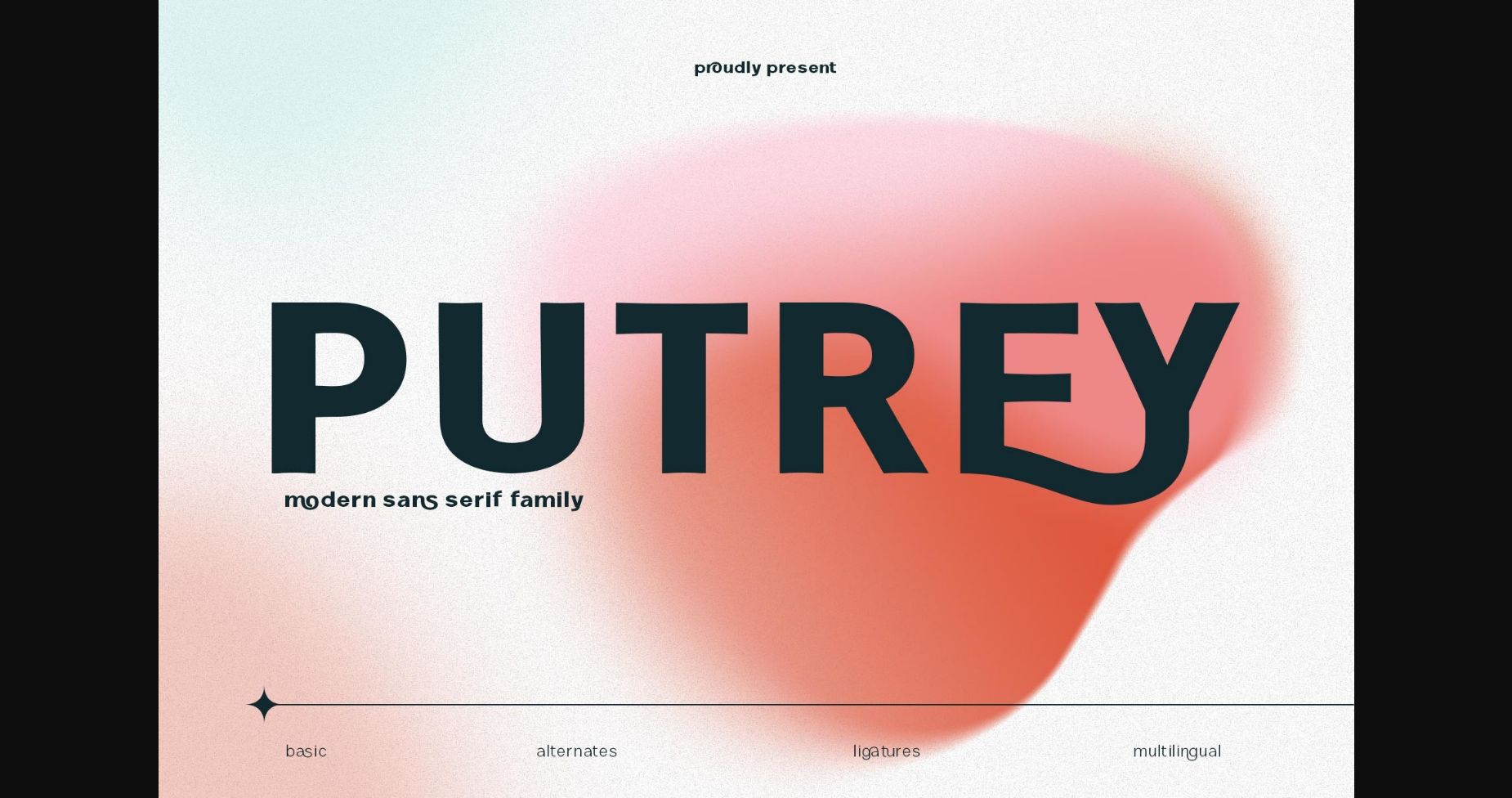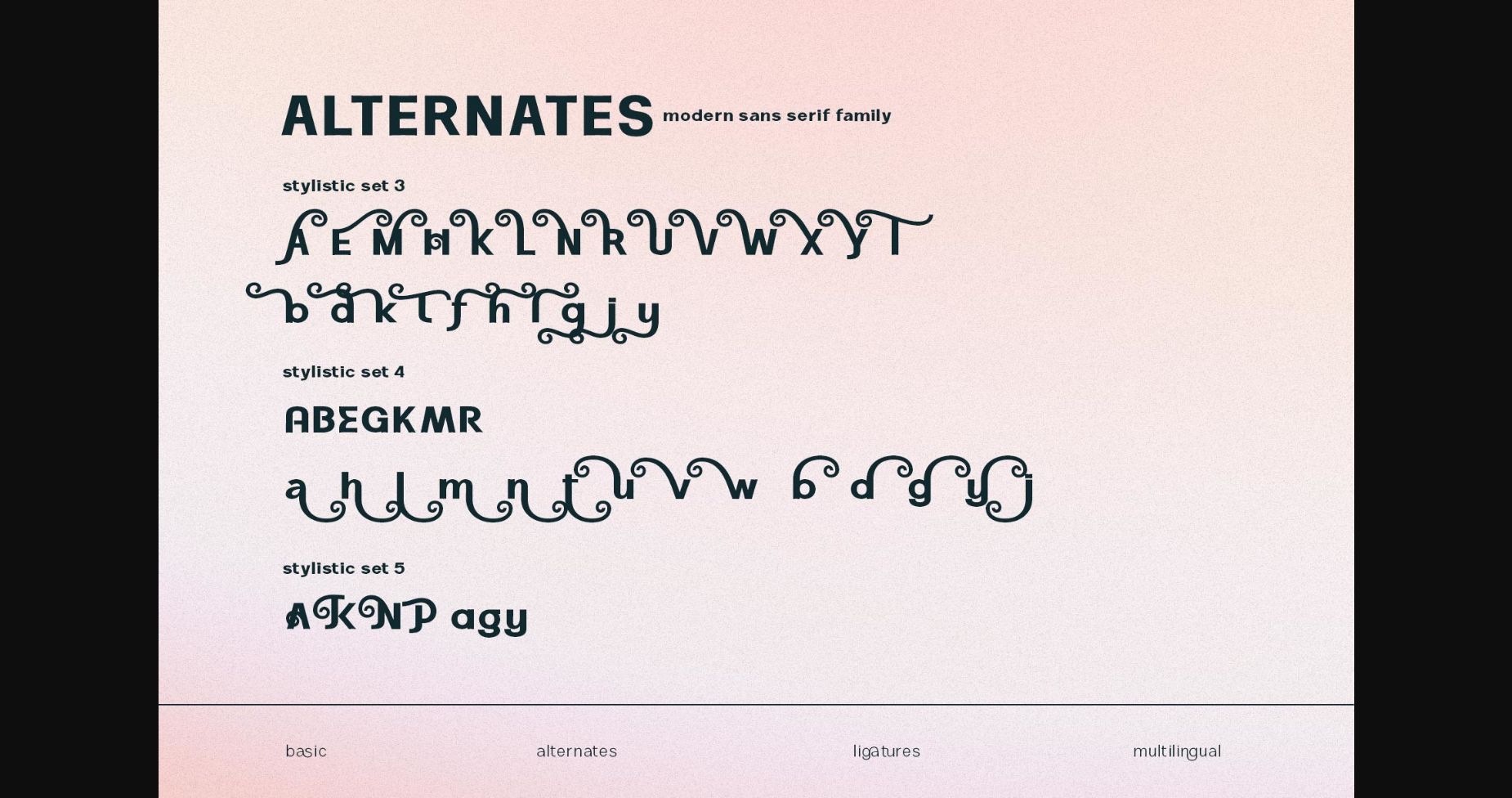
About Putrey Font
Putrey is a clean sans serif font, designed with a modern concept that is simple and dynamic. It is perfect for any branding project such as logos, t-shirt printing, creative products, and more. This font is PUA encoded which means you can access all of the glyphs and swashes with ease.